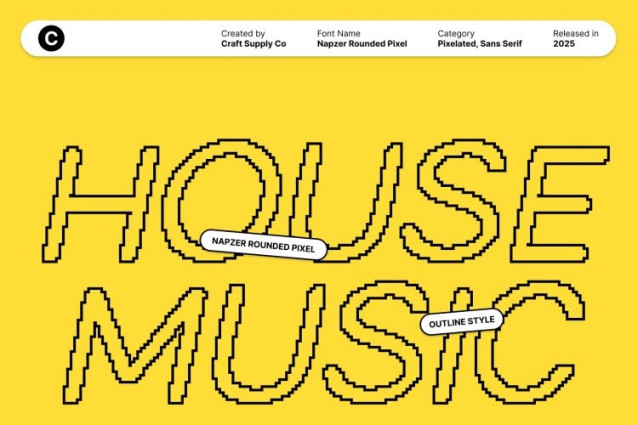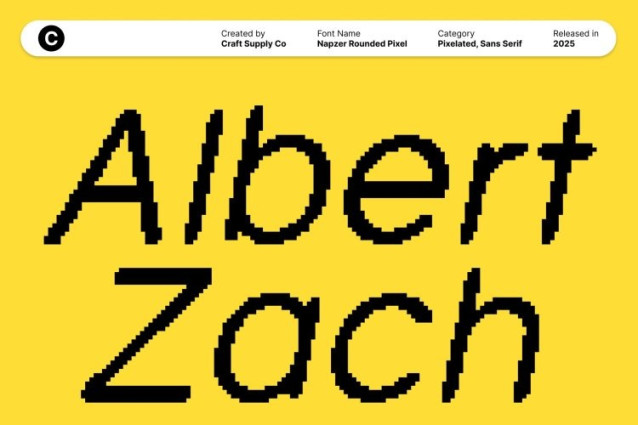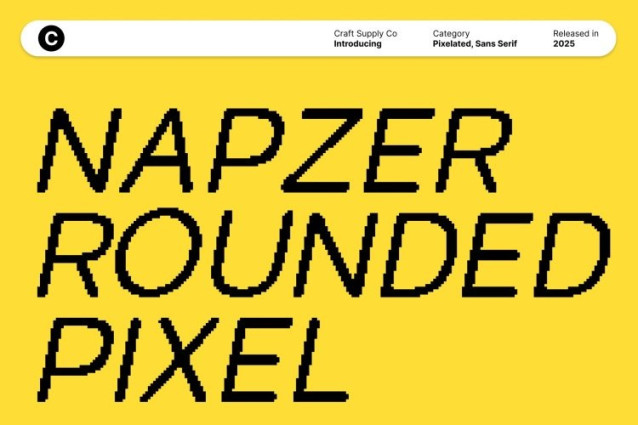
Napzer Rounded Pixel Font
Napzer Rounded Pixel Font This is a modern sans serif display font crafted with geometric precision and sleek, clean lines. Its minimalist structure conveys sophistication and clarity, making it ideal for contemporary designs that demand elegance, professionalism, and visual harmony. Each letterform is designed to feel balanced, modern, and highly readable.
Rounded Corners for Friendly, Approachable Character
The rounded terminals soften the geometric forms, giving this font a warm and approachable personality. This subtle touch enhances versatility, making the font suitable for a wide range of applications, from branding and editorial layouts to packaging and digital interfaces, without losing its modern aesthetic.
Pixel Style for Digital Modernity
Enhanced with a pixel-inspired style, this font brings a tech-forward, digital edge to its refined forms. The pixel detailing adds a contemporary flair, making the font perfect for digital branding, modern web design, and creative campaigns that require a professional yet approachable style.
Perfect for Digital Branding, Modern Design, and Creative Projects
This font excels in projects that require a blend of sophistication, friendliness, and digital modernity. Use it for branding, posters, websites, or social media campaigns to create sleek, professional designs with a subtle contemporary edge. Its clean geometry, rounded forms, and pixel-inspired details make it a versatile and visually appealing choice for modern creative projects.